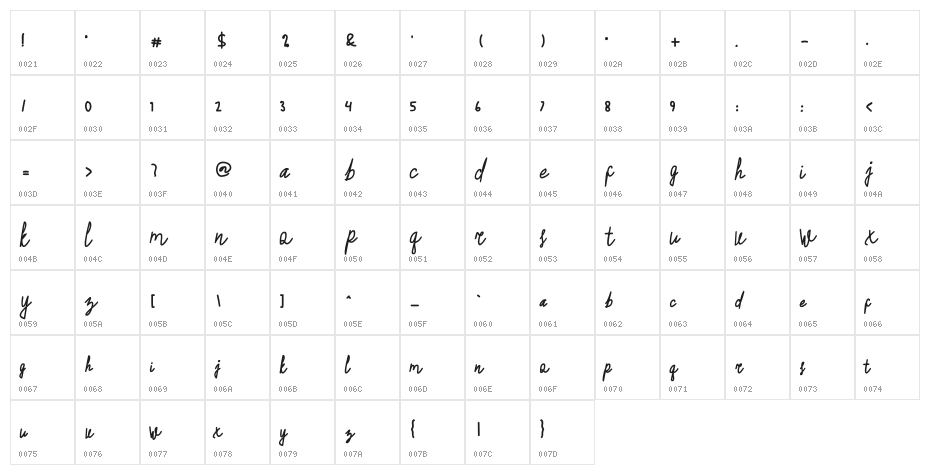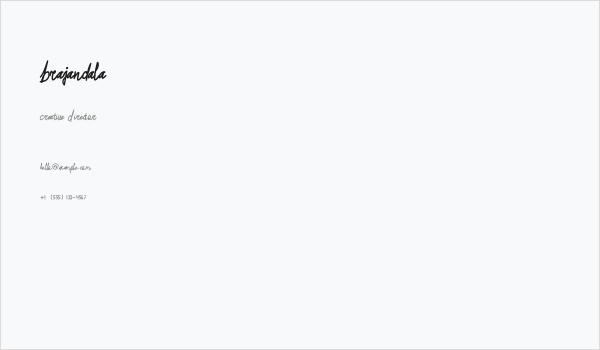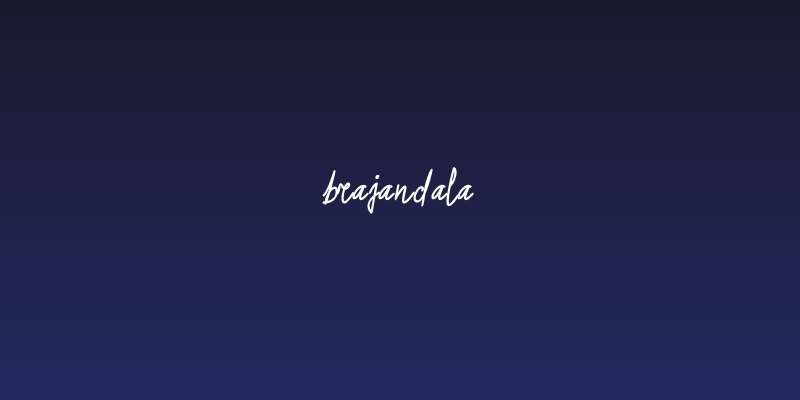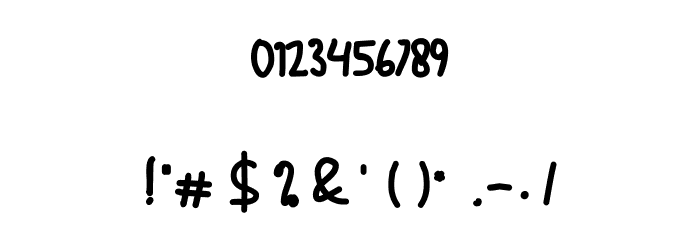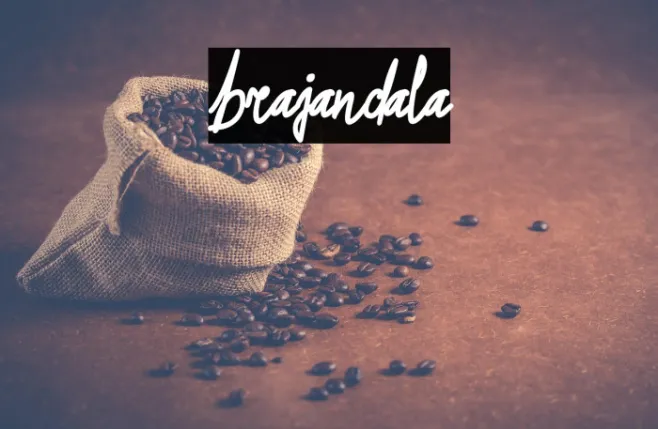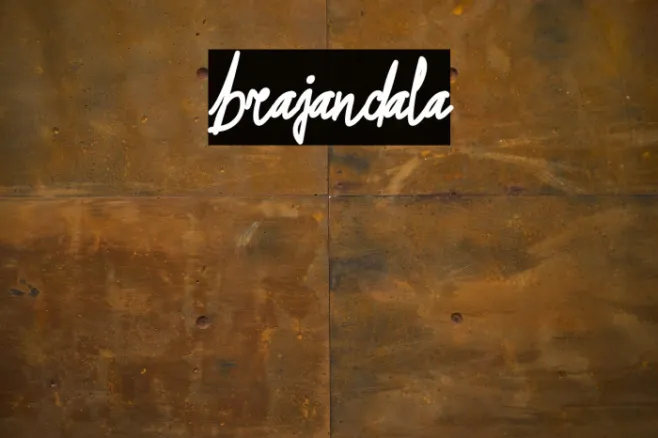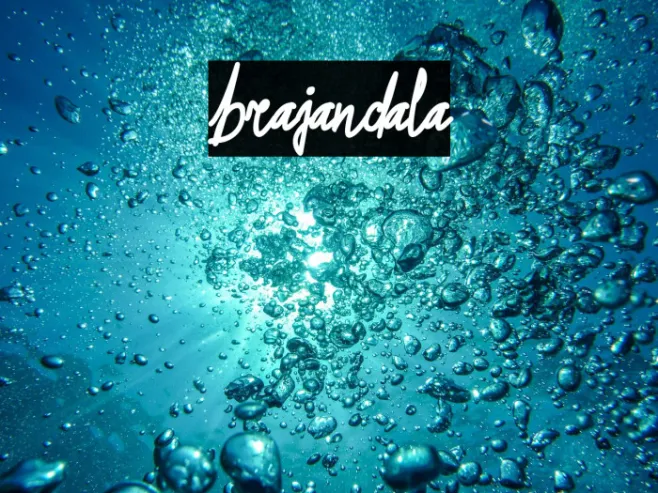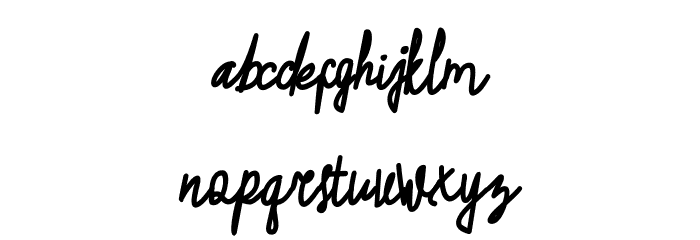
Brajandala Font
Brajandala Description
This font features a playful and dynamic handwritten style, characterized by its fluid and slightly irregular strokes. The letters have a natural flow, with varying thickness that adds a sense of movement and personality. The uppercase and lowercase letters maintain a consistent style, with some letters extending slightly above or below the baseline, enhancing its casual and informal appearance. The numerals and special characters complement the alphabet with similar playful curves and loops, making it versatile for creative projects.
| Use Case | Logos, Invitations, Social Media Graphics |
| Proposed Projects | Ideal for greeting cards, invitations, personal branding, and creative social media graphics. |